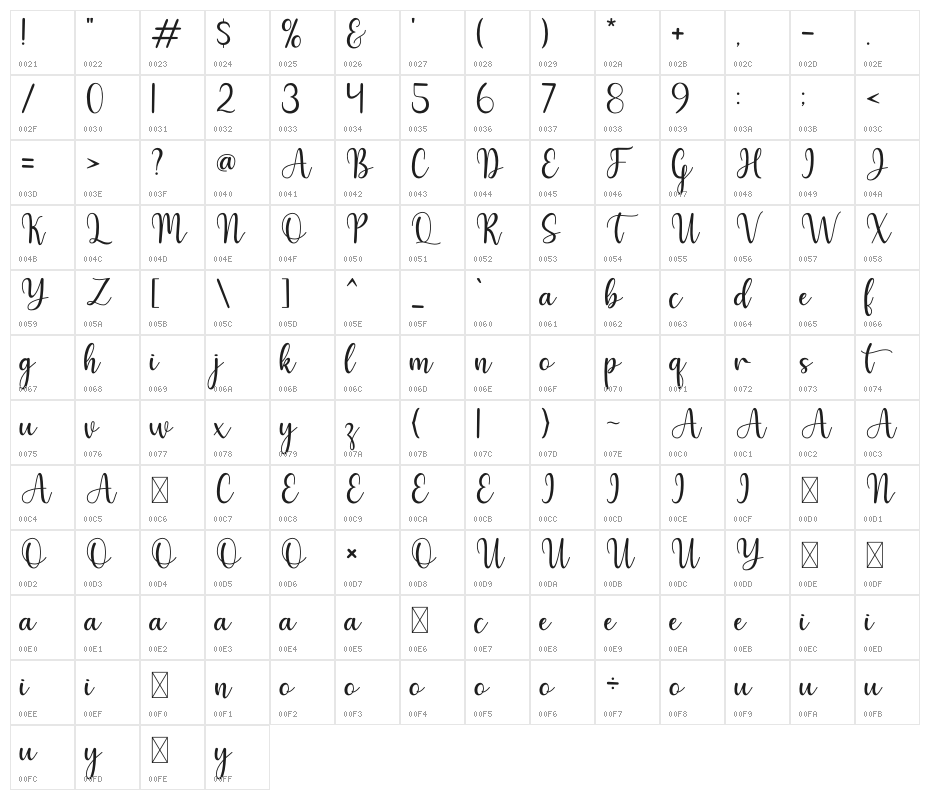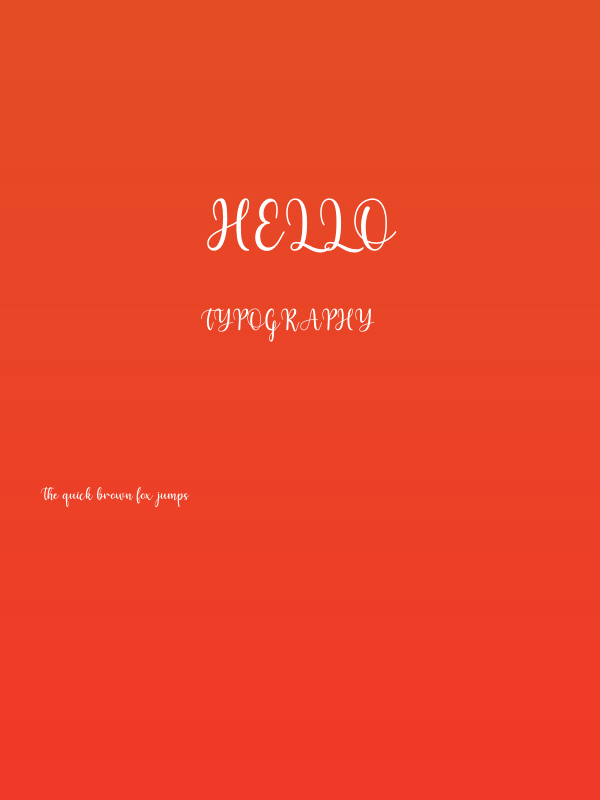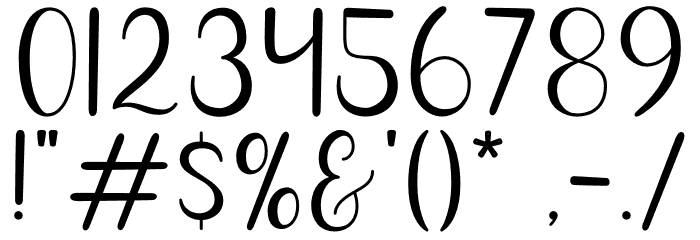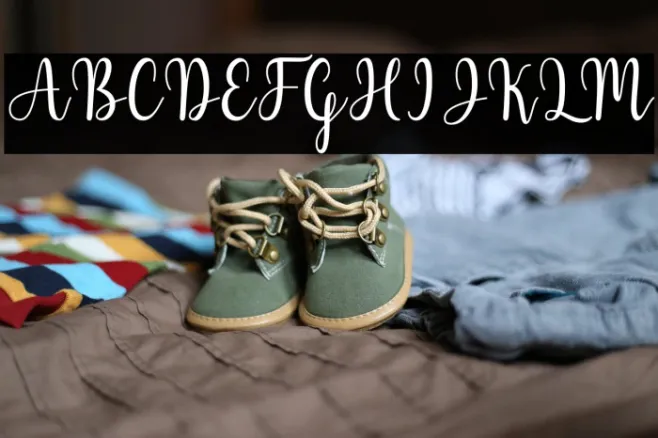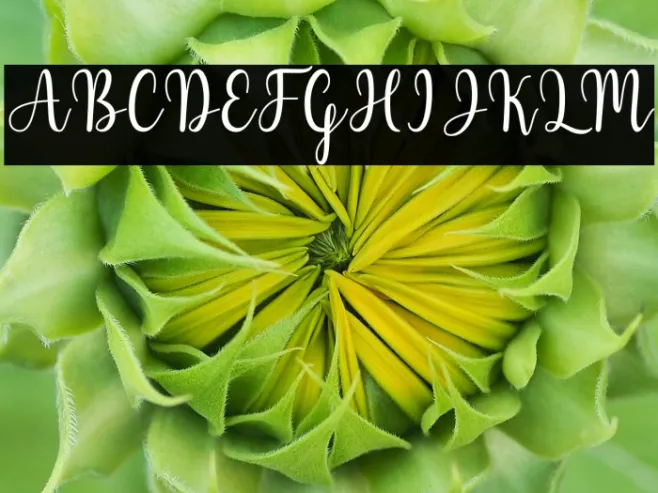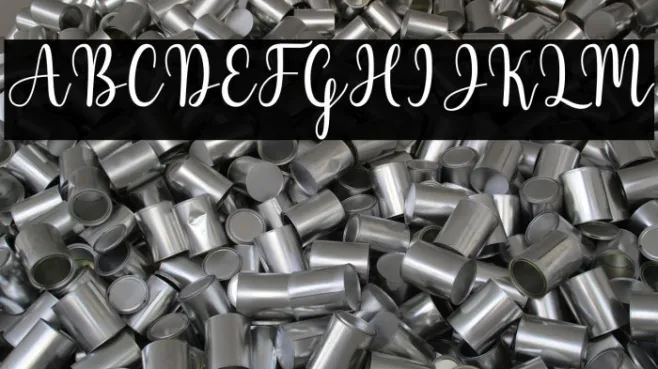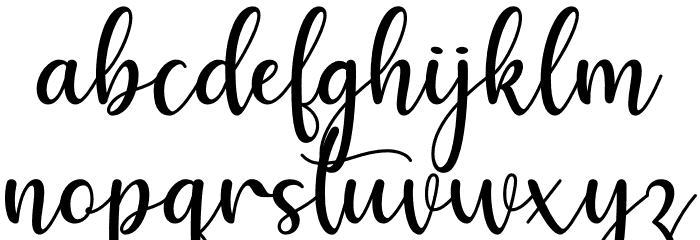
Hello Font
Hello Description
This font features a flowing, cursive style with elegant loops and swashes, giving it a handwritten appearance. The uppercase letters are slightly more ornate, with additional flourishes that enhance their decorative appeal. The lowercase letters maintain a consistent flow, making them highly legible while retaining a stylish flair. Numbers are bold and clear, complementing the overall aesthetic. The special characters are designed to match the script's fluidity, ensuring a cohesive look across all elements. This font is ideal for projects that require a personal touch, such as invitations, greeting cards, and branding materials.